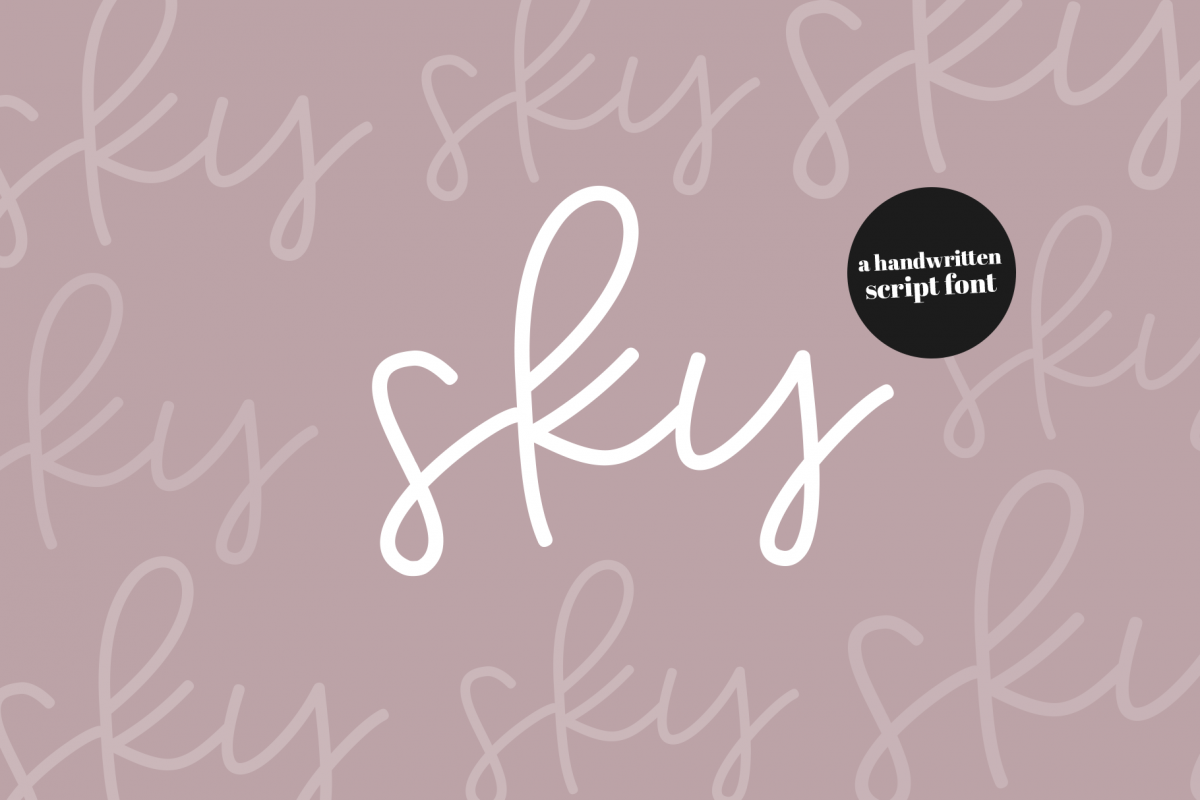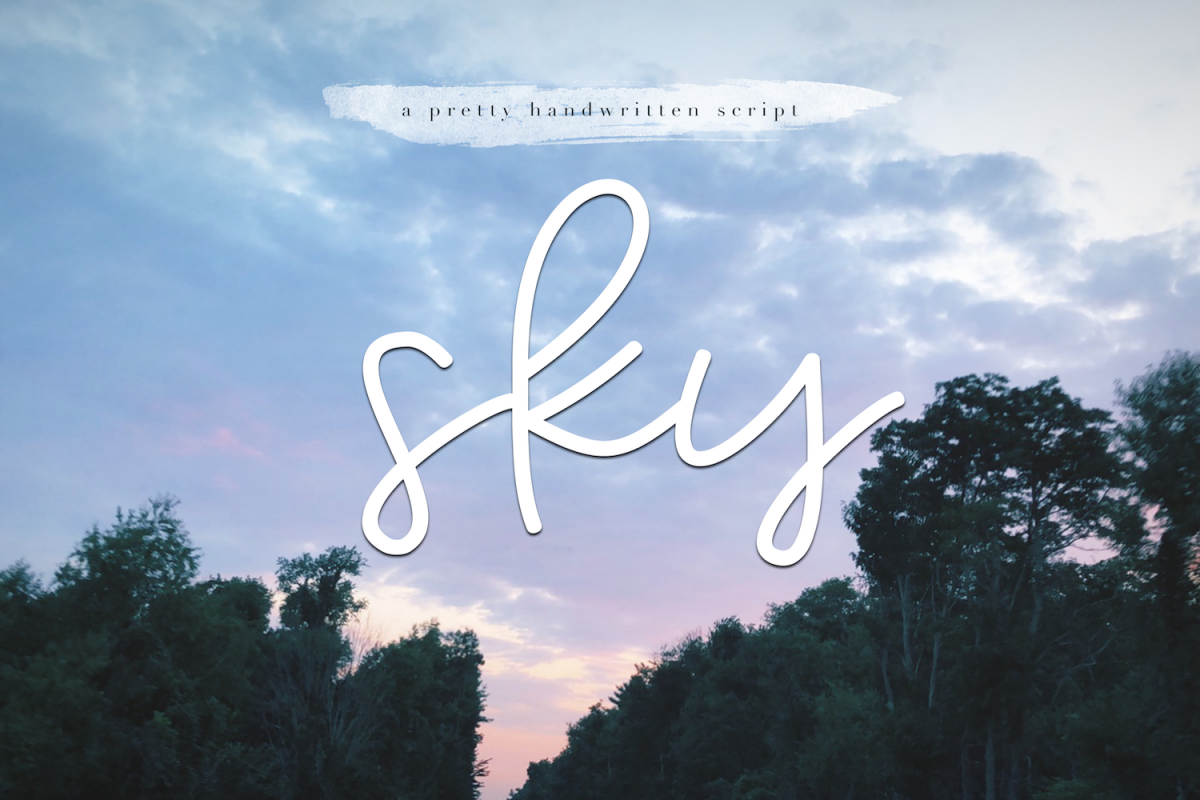
Sky - Handwritten Script Font
Sky Script
Starfish is a pretty handwritten script font.
This font is perfect for quotes, headings, designs, logos, invitations and more!
This font *does* include accent characters.